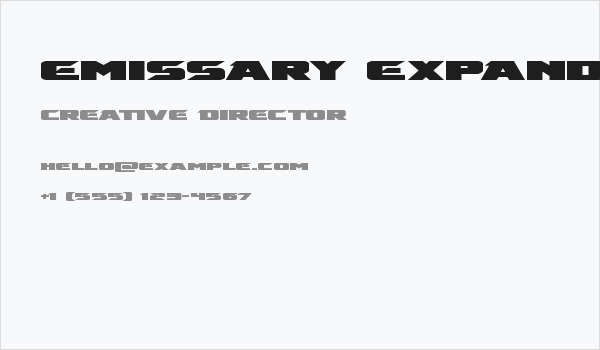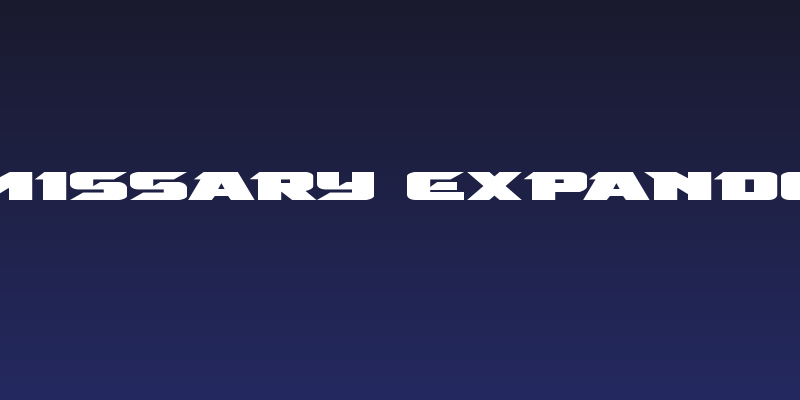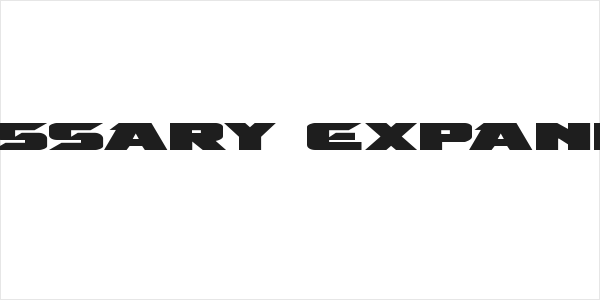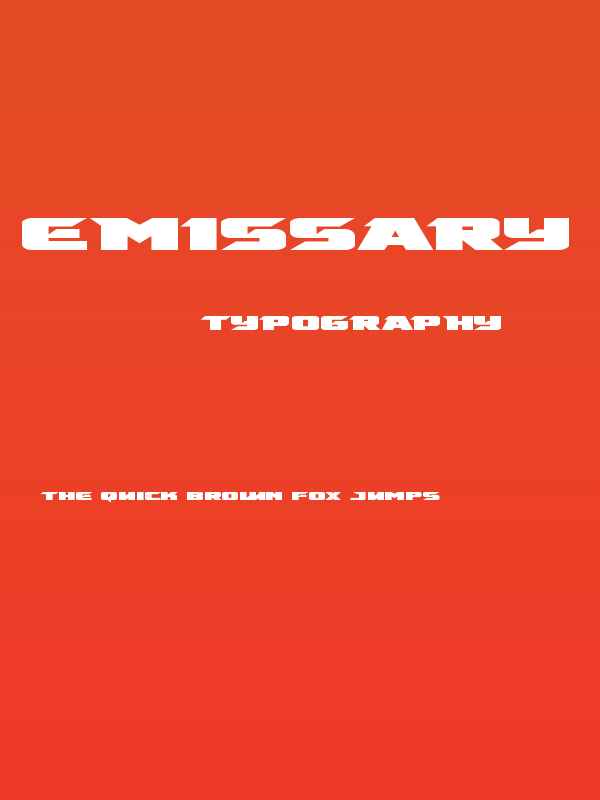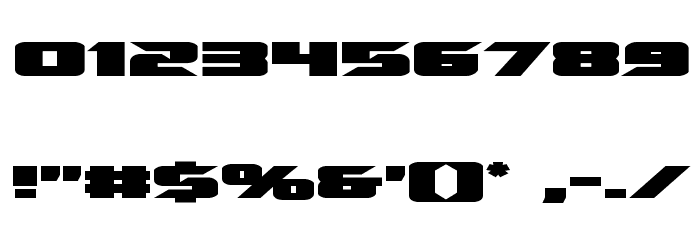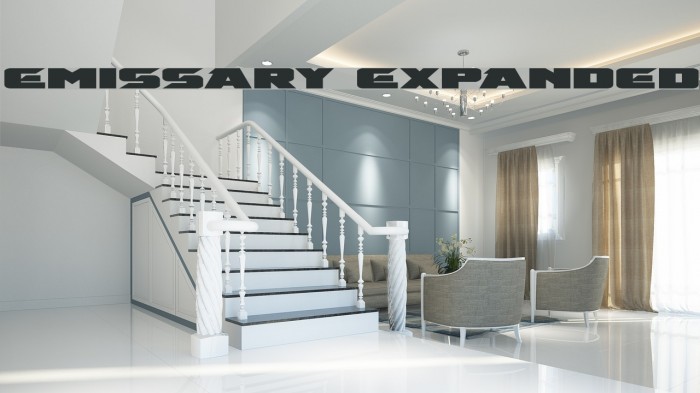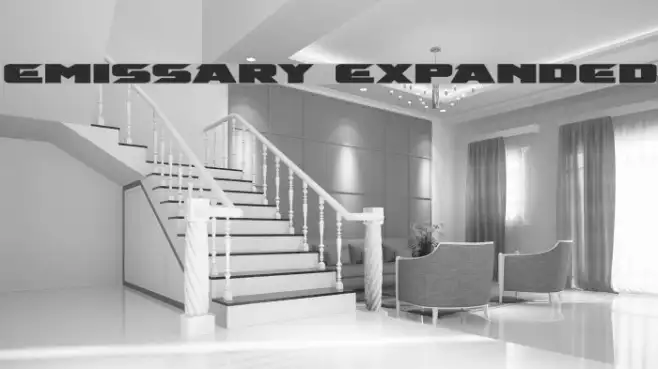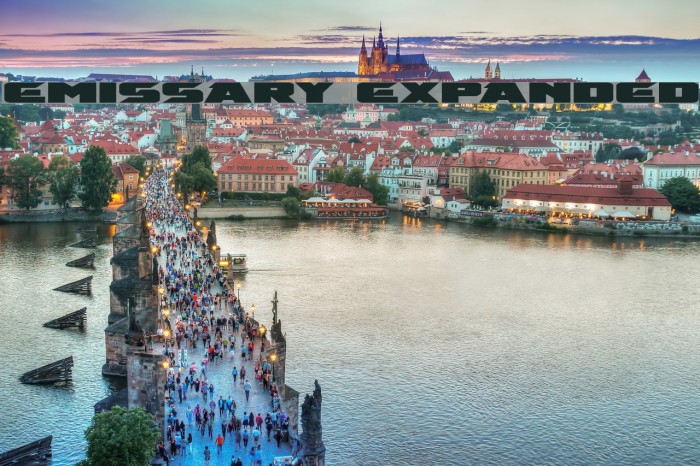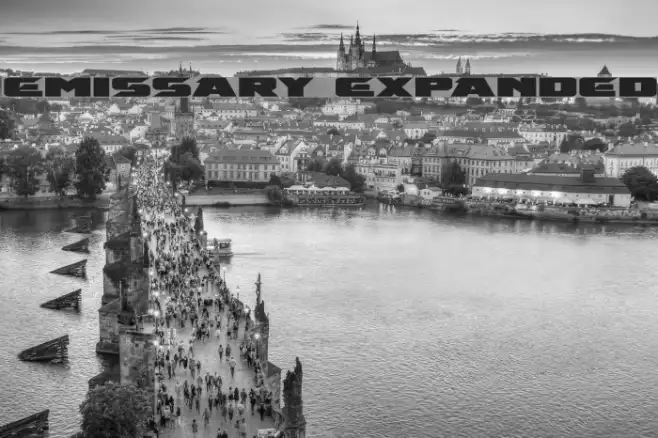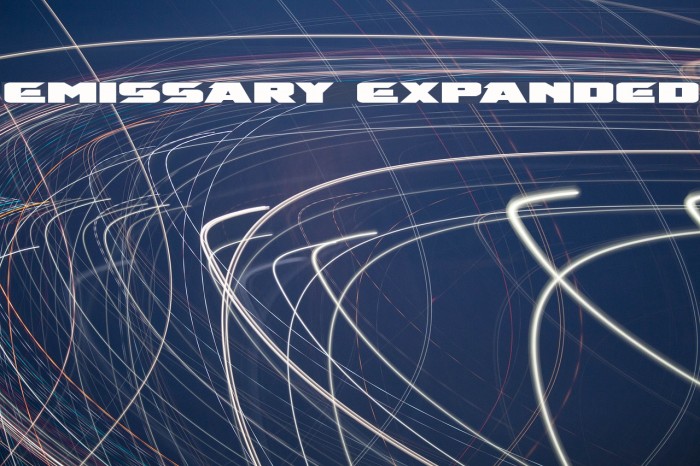
Emissary Expanded Font
Emissary Expanded Description
This font features a bold, futuristic design with sharp, angular edges and a distinctly expanded width. The characters are heavily stylized, with a geometric influence that gives them a dynamic and aggressive appearance. The uppercase and lowercase letters maintain a consistent style, with a strong emphasis on horizontal lines and diagonal cuts that create a sense of motion and energy. The numerals and special characters follow the same design principles, ensuring a cohesive look across all glyphs. This font is ideal for projects that require a modern, impactful aesthetic.